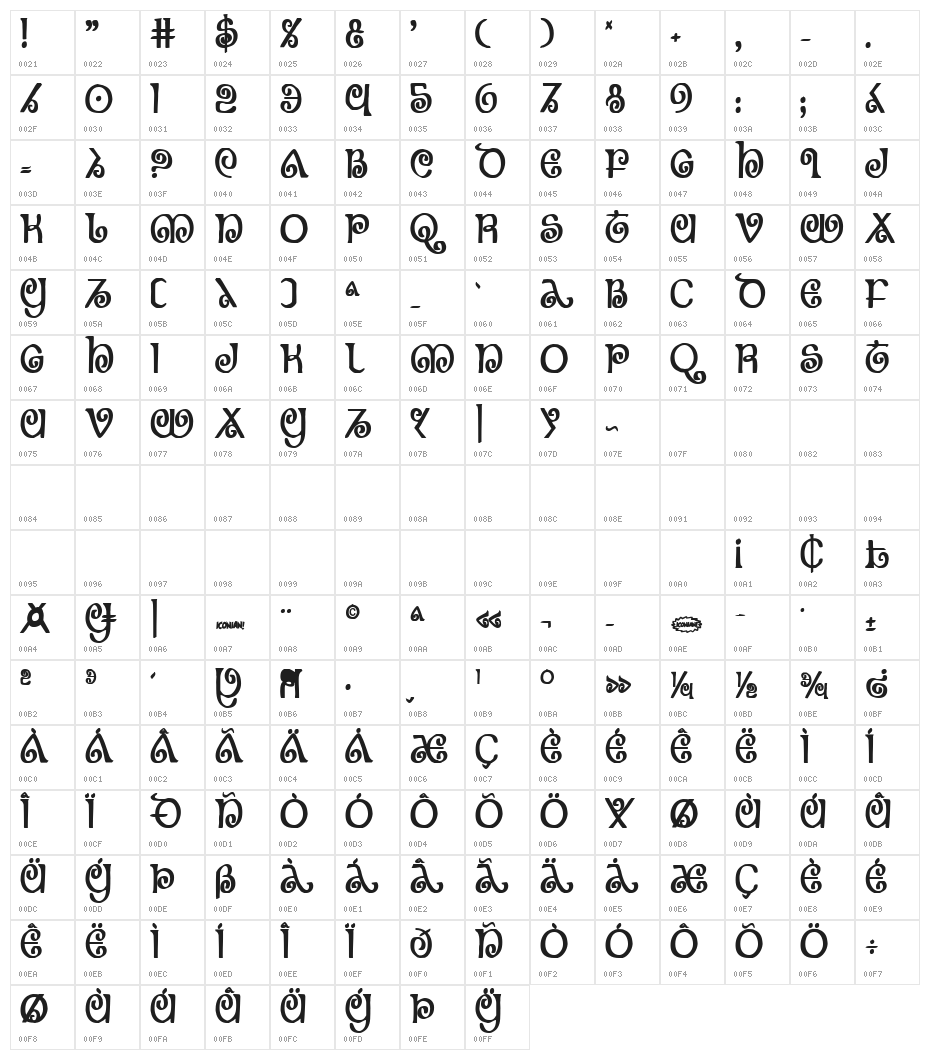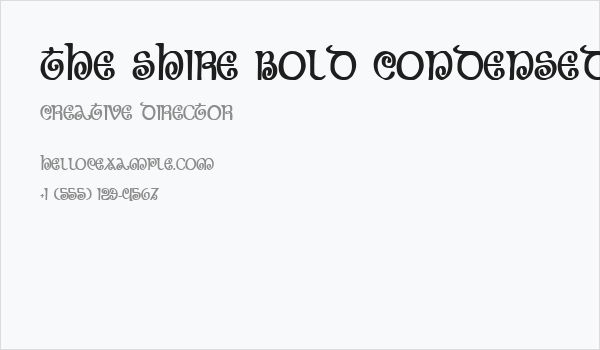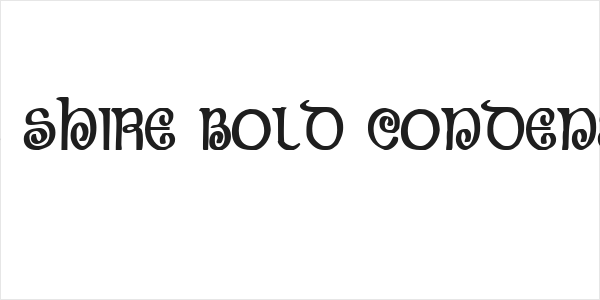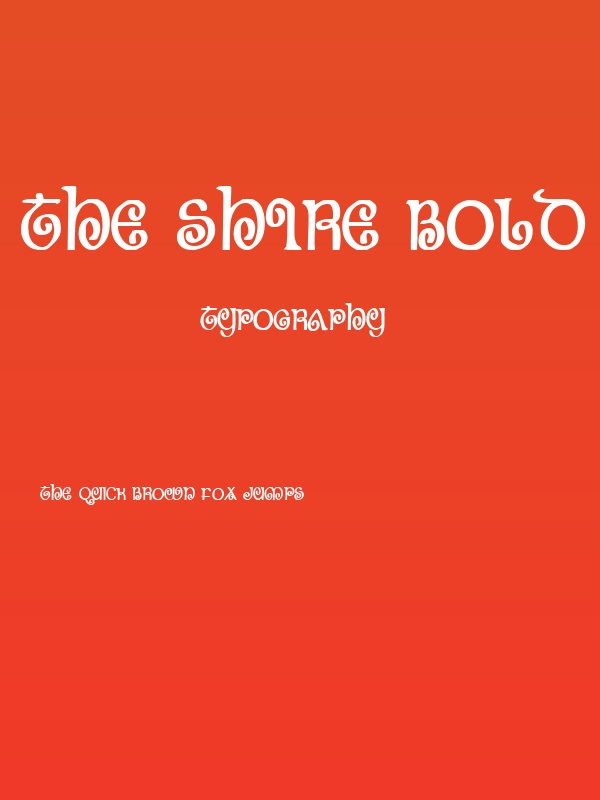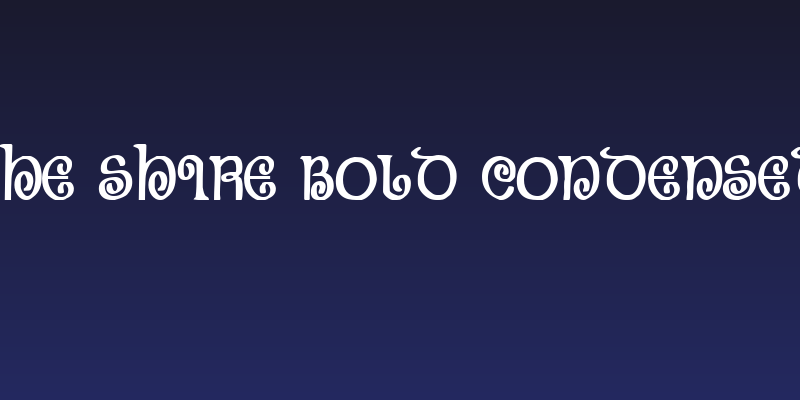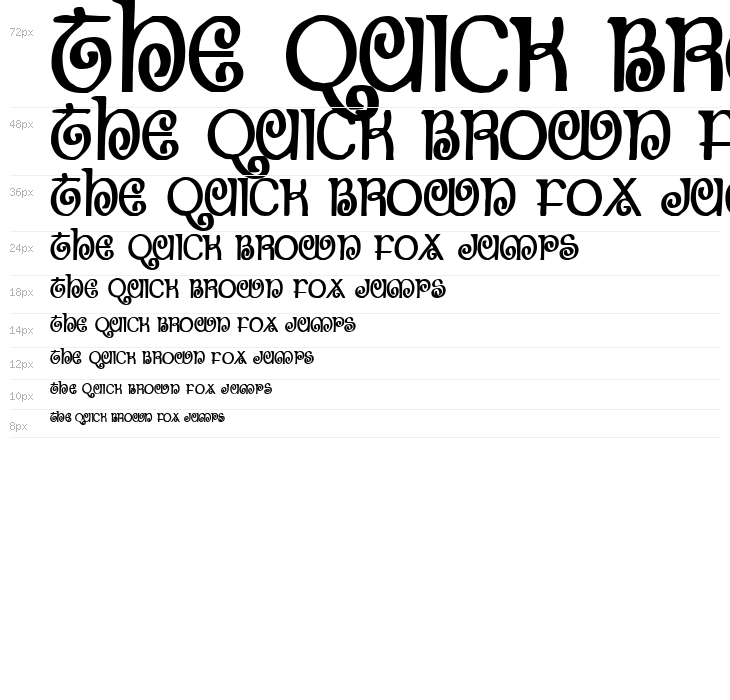
The Shire Bold Condensed Font
The Shire Bold Condensed Description
This font features a bold and condensed style with a whimsical, decorative flair. The characters are uniquely designed with intricate curls and loops, giving them a playful and artistic appearance. The uppercase and lowercase letters maintain a consistent style, with each character exhibiting a distinct personality. The numbers and special characters follow the same decorative theme, ensuring a cohesive look across all glyphs. The font's boldness and condensed width make it stand out, while the decorative elements add a touch of elegance and creativity. This font is ideal for projects that require a distinctive and eye-catching typeface.
| Proposed Projects | Perfect for fantasy-themed designs, book covers, posters, and branding that requires a unique and artistic touch. |